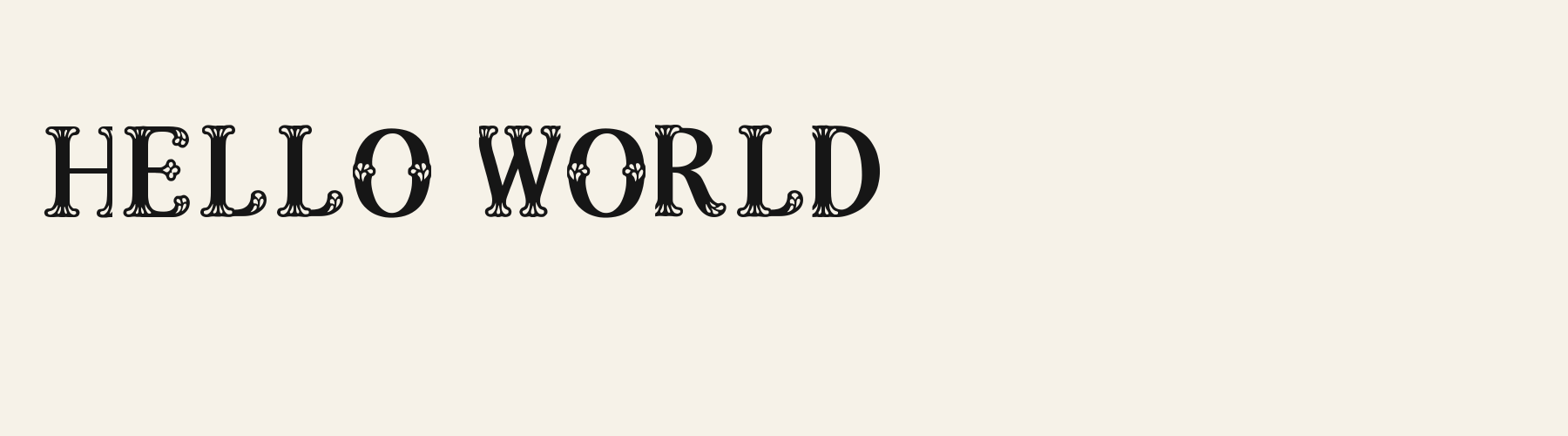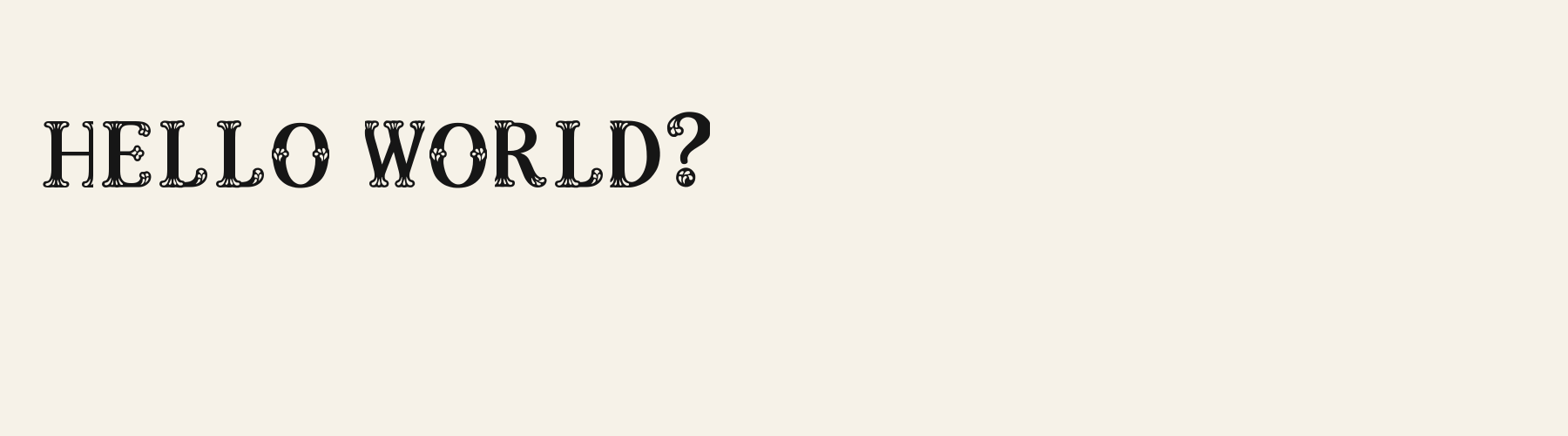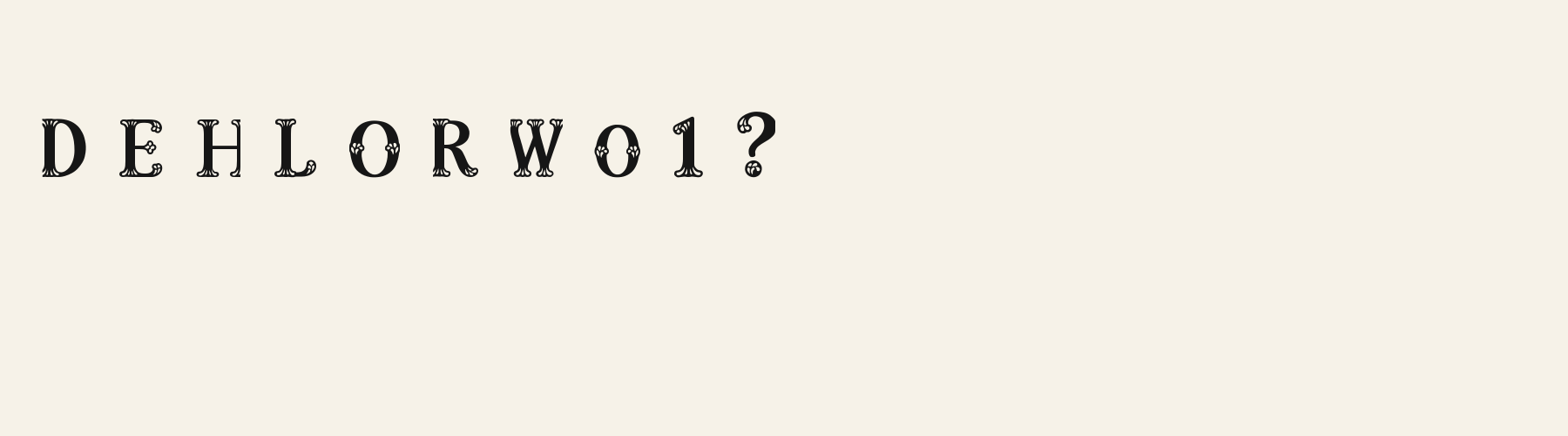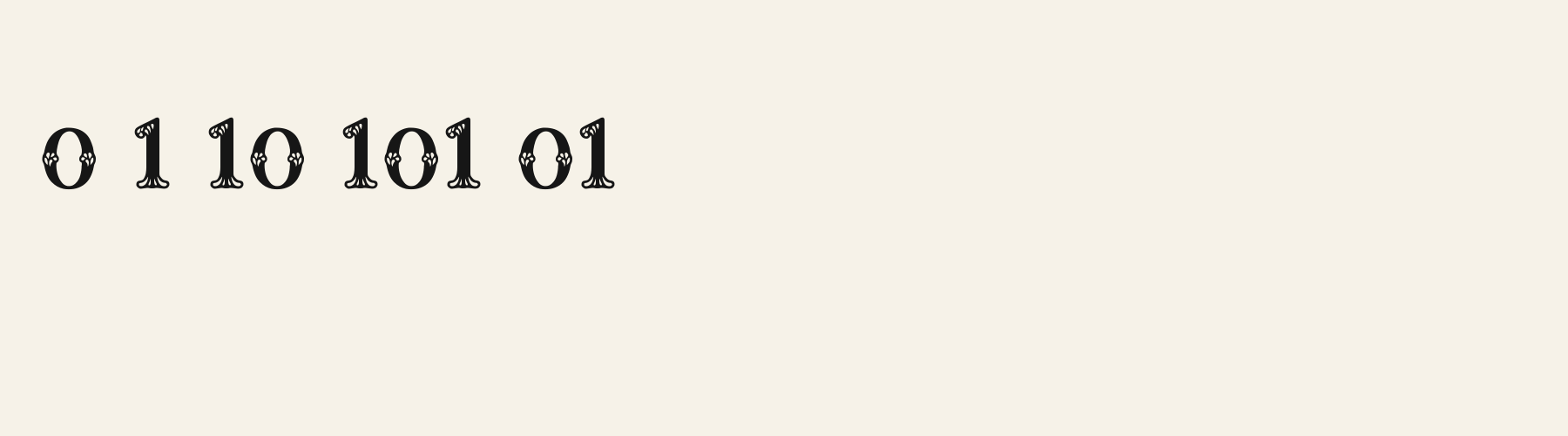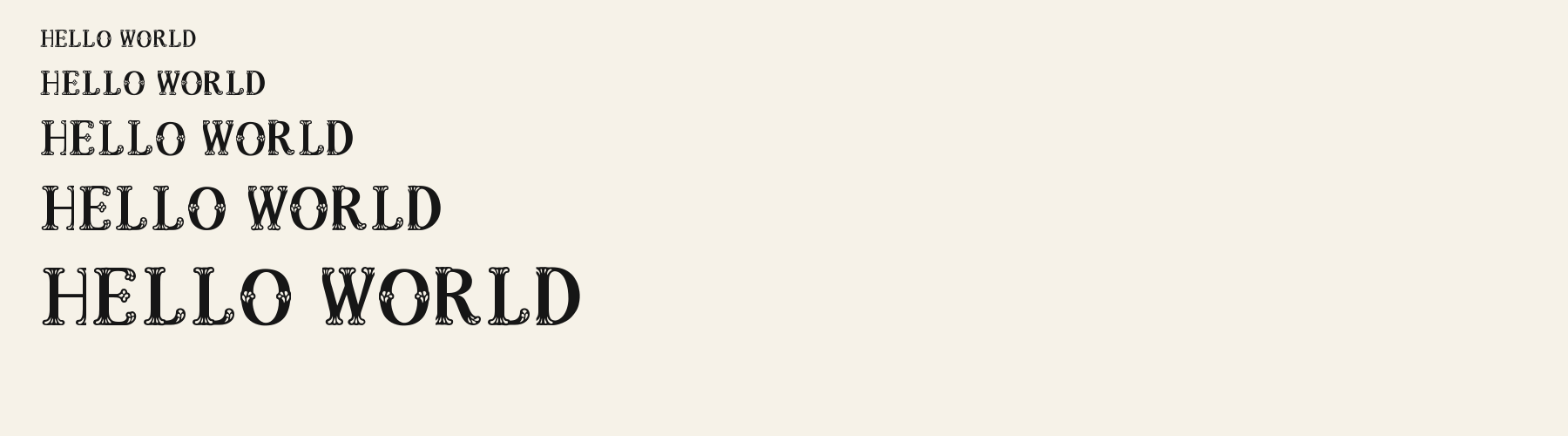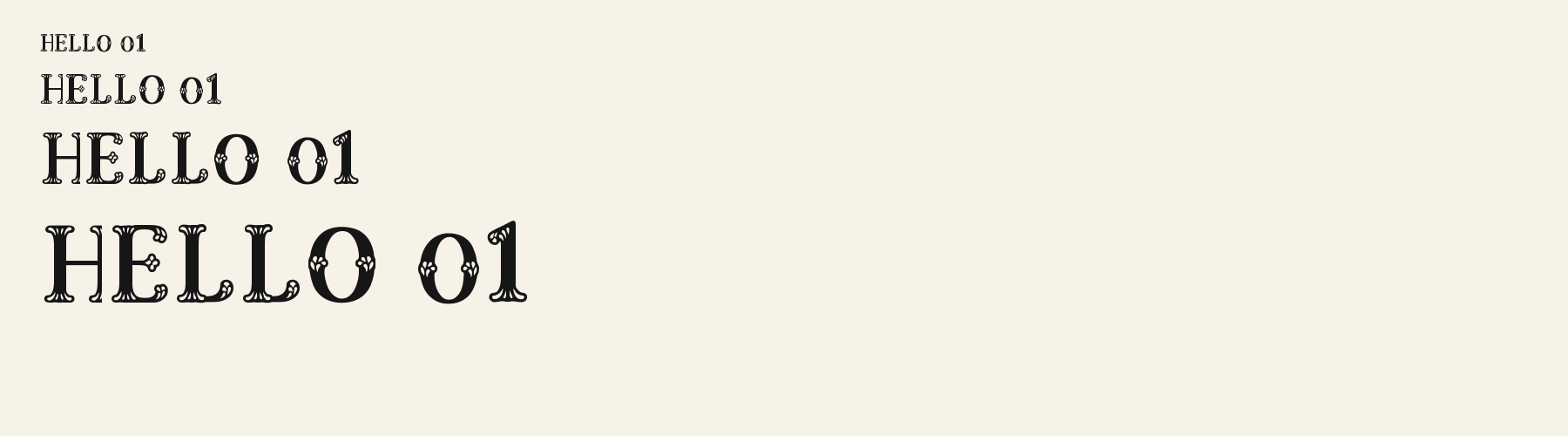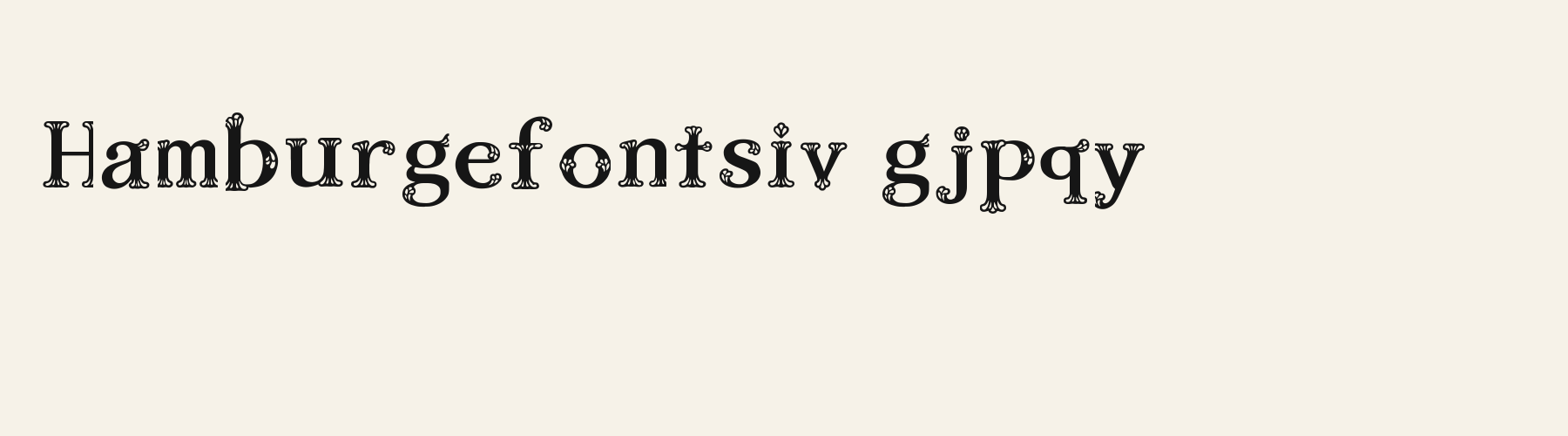
Pretty Lace Display is an an airy display alphabet for decorative headings, cards, and packaging accents. Keep every main stroke continuous and avoid fine detached lace motifs that could be mistaken for glyphs. Best for decorative headings, cards, and packaging accents.